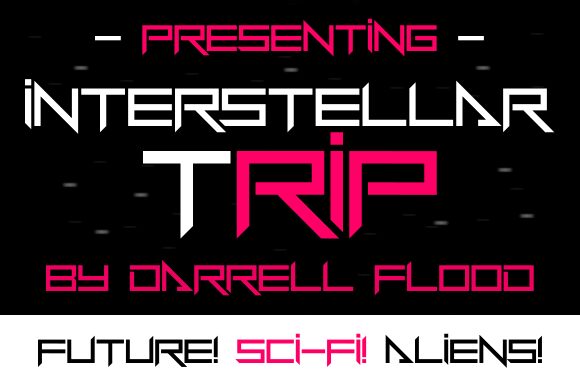
Interstellar Trip Italic, designed by Hawtpixel, is a font that boldly ventures into the realm of the futuristic. Its semi-light weight harmonizes with an extra-expanded width to give it a commanding presence on any surface. The Italic style of this display typeface accentuates motion and forward-thinking dynamism, encapsulating a sense of adventure and exploration.
The sleek lines and sharp angles evoke images of spacecraft and high-tech innovation, making it an ideal choice for projects that require a cutting-edge or out-of-this-world aesthetic. The font's expansive letterforms suggest openness and innovation, inviting designers to use it in creative scenarios ranging from digital interfaces to print media where impact is desired.
With its modernistic appeal, Interstellar Trip Italic stands out as not just a typeface but an experience-perfect for branding, titling in sci-fi media, or any visual communication that aims to push boundaries and imagine the future.